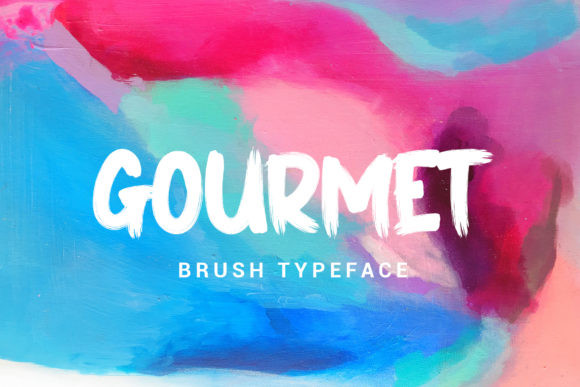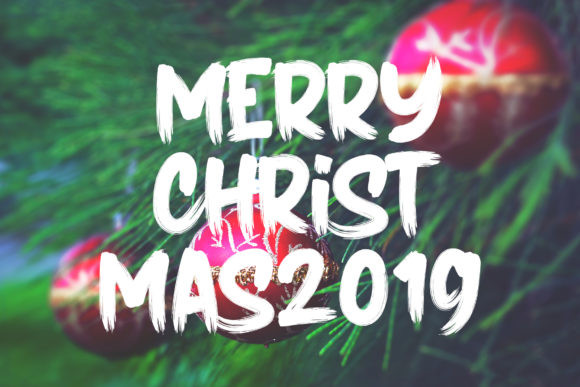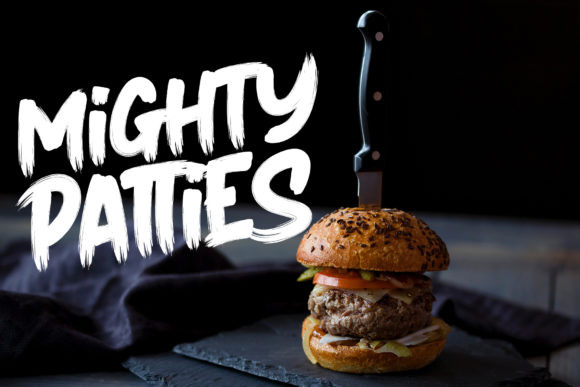
Gourmet Font
Gourmet is a thick and bold script font that will deliver any message with charm, confidence, and style. Get inspired by its chunky vibe!